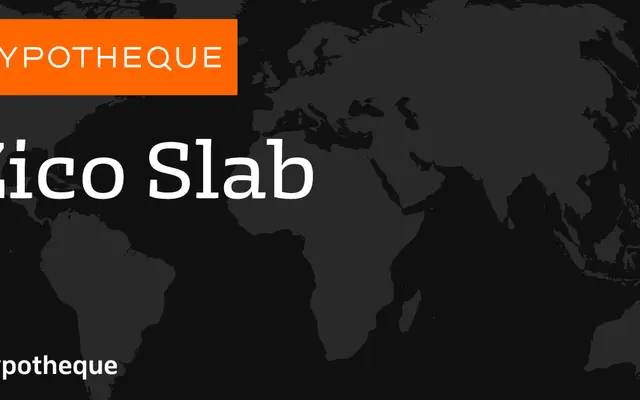
Zico Slab specimen from Typotheque
A slab serif component of the wider Zico superfamily, running seven weights with italics and coordinating with a sans, condensed sans and display subfamily.
Zico Slab sits within a tightly integrated type system that spans a slab, a sans, a condensed sans and a display family, all sharing common proportions and structural logic. Seven weights from Thin to Black are available with matching italics, giving broad range for editorial and corporate publishing work. The companion Zico Display adds Outline and Inline variants for headline use, rounding out a versatile multi-purpose system.
Zico Slab is a slab serif forming part of the broader Zico system alongside a sans and condensed sans, sharing structural proportions across the family. The upright and italic cuts across seven weights confirm its classification as a slab serif.